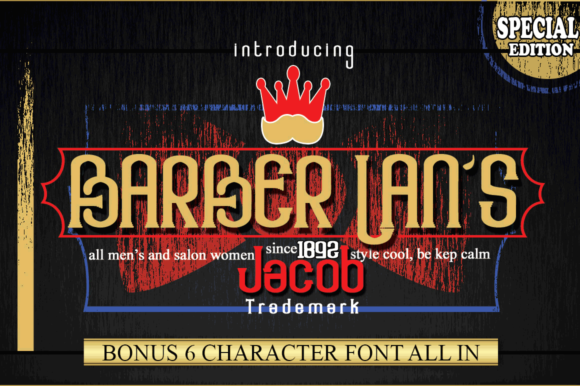
Introducing the Barber Lan's Font, the sans serif family that exudes elegance, modernism, and sophistication. Designed by the talented jehansyah251, this font is not just a collection of letters, but a gateway to a world of creativity and boundless expression. Each glyph, meticulously crafted with precision, embodies artistic flair and meticulous attention to detail. This font family is the quintessential choice for designers and typography enthusiasts who demand nothing short of perfection. Prepare to be captivated by its allure as it transforms your digital creations into captivating masterpieces.
Immerse yourself in the world of Barber Lan's Font, where your ideas come to life in stunning clarity and grace. From captivating headlines that command attention to sleek body text that exudes readability, this font family is a versatile chameleon, effortlessly adapting to any design challenge. Its clean lines and balanced proportions ensure seamless harmony with visual elements, creating a cohesive and visually appealing experience. Let Barber Lan's Font become your trusted companion in crafting unforgettable designs that leave a lasting impression.
Unleash your creativity and embark on a journey of self-expression like never before. Barber Lan's Font is your passport to a world where typography takes center stage. With its comprehensive range of weights and styles, this font family grants you the freedom to explore a spectrum of design possibilities. Create striking logos that radiate professionalism, craft eye-catching posters that demand attention, or spin captivating stories through beautifully designed editorial layouts. The possibilities are endless, limited only by the boundaries of your imagination.
Experience the allure of Barber Lan's Font and let your designs take flight. Whether you're a seasoned designer or just starting your creative journey, this font family is your trusted companion, guiding you towards design excellence. Its versatility and timeless appeal make it an indispensable tool in your creative arsenal. Embrace the boundless creativity that awaits you and let Barber Lan's Font ignite the flame of inspiration within.